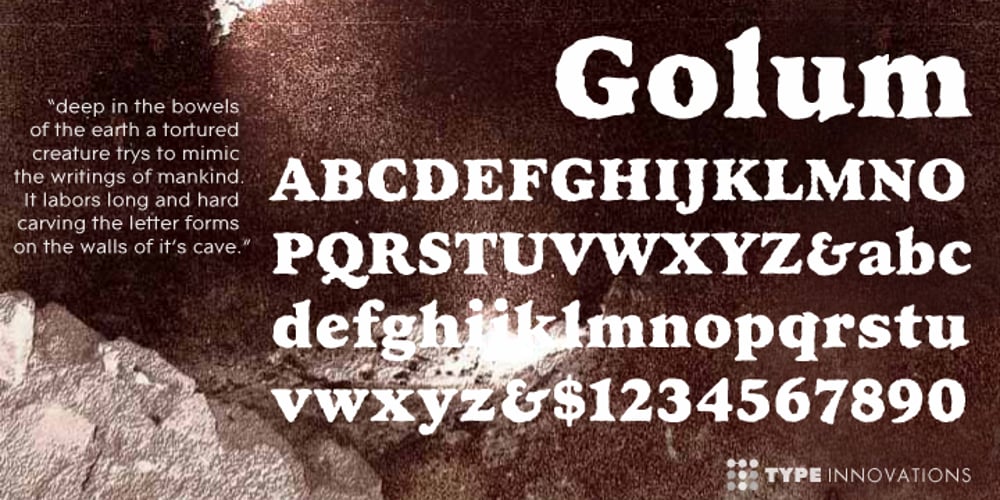
Golum
Golum font
Golum Font Family was designed by Alex Kaczun and published by Type Innovations. Golum contains 1 styles and family package options. Deep in the bowels of the earth a tortured creature tries to mimic the writings of mankind. It labors long and hard carving the letter forms on the walls of its cave. Many years later, rubbings where taken of these impressions and fashioned to create this hideous font. All kidding aside, with such a formal training in type design, it was not easy for me to create these ill-shaped letters. I kept wanting to smooth out the outlines. Anyway, it was a good exercise and we now have this antique heavy-weight.